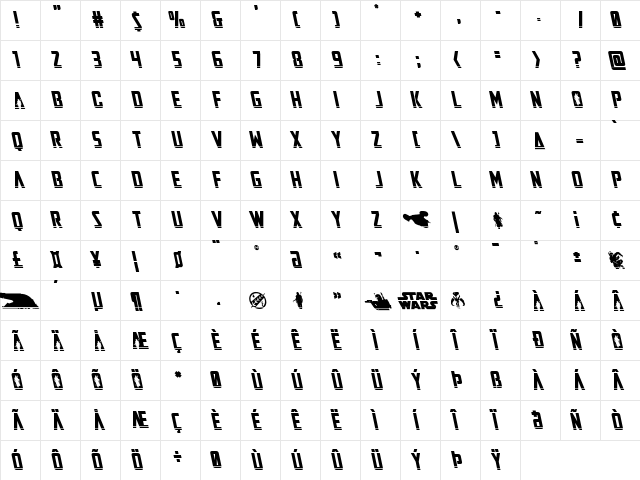
Mandalore Laser Leftalic Regular
Design Context for Mandalore Laser Leftalic Typeface
Mandalore Laser Leftalic is a composed and adaptable typeface that performs quietly and consistently across a wide range of design contexts. Its italic angle brings a sense of urgency and motion to the letterforms.
Pro Tip: Try Mandalore Laser Leftalic for annotation and caption copy alongside an upright companion — the contrast in angle creates a dynamic but ordered typographic system.